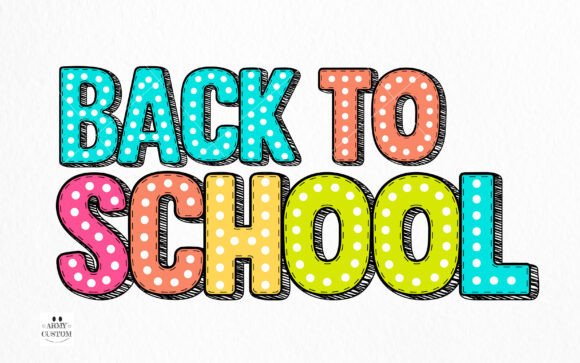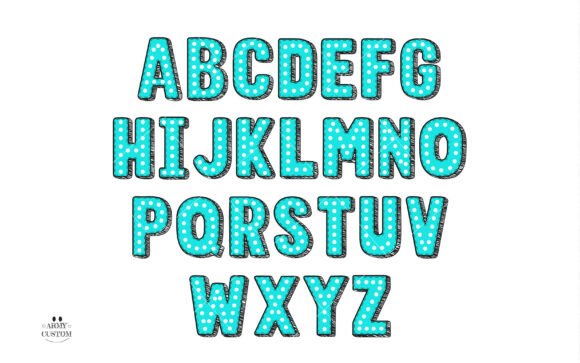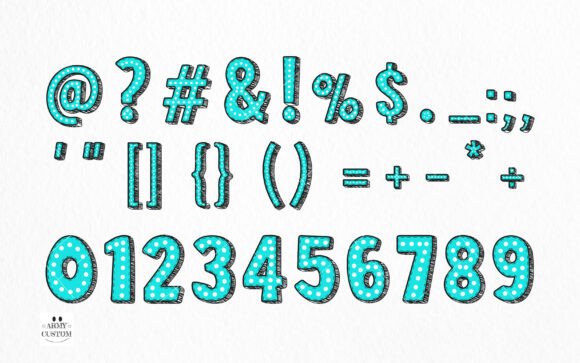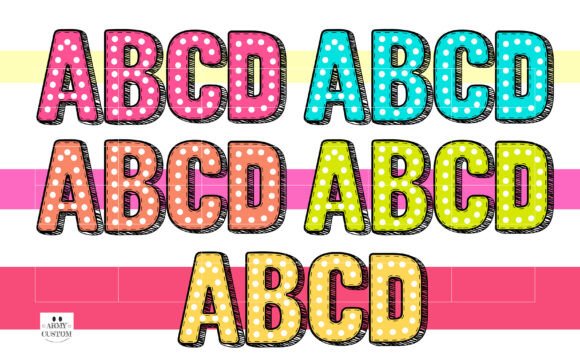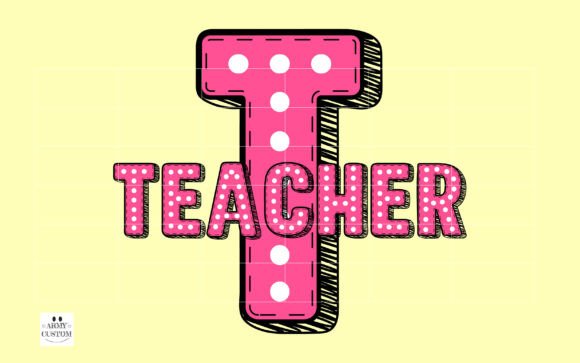
Introduction to Dotted 3d Back to School Font
Introducing Dotted 3D Rainbow font – an enchanting mix of whimsy and vibrancy designed to infuse your creative projects with an element of joy and playfulness.
Ideal for injecting charm into any cute-theme endeavor, this color font paints a canvas of creativity that leaps off the page Harness the power of Dotted 3D Rainbow and let your imagination take flight.
Key Features of Dotted 3d Back to School Font
Dotted 3d Back to School Font offers exceptional quality and versatility, making it a valuable addition to your design toolkit. Whether you’re creating for personal projects or commercial use, Dotted 3d Back to School Font delivers professional results.